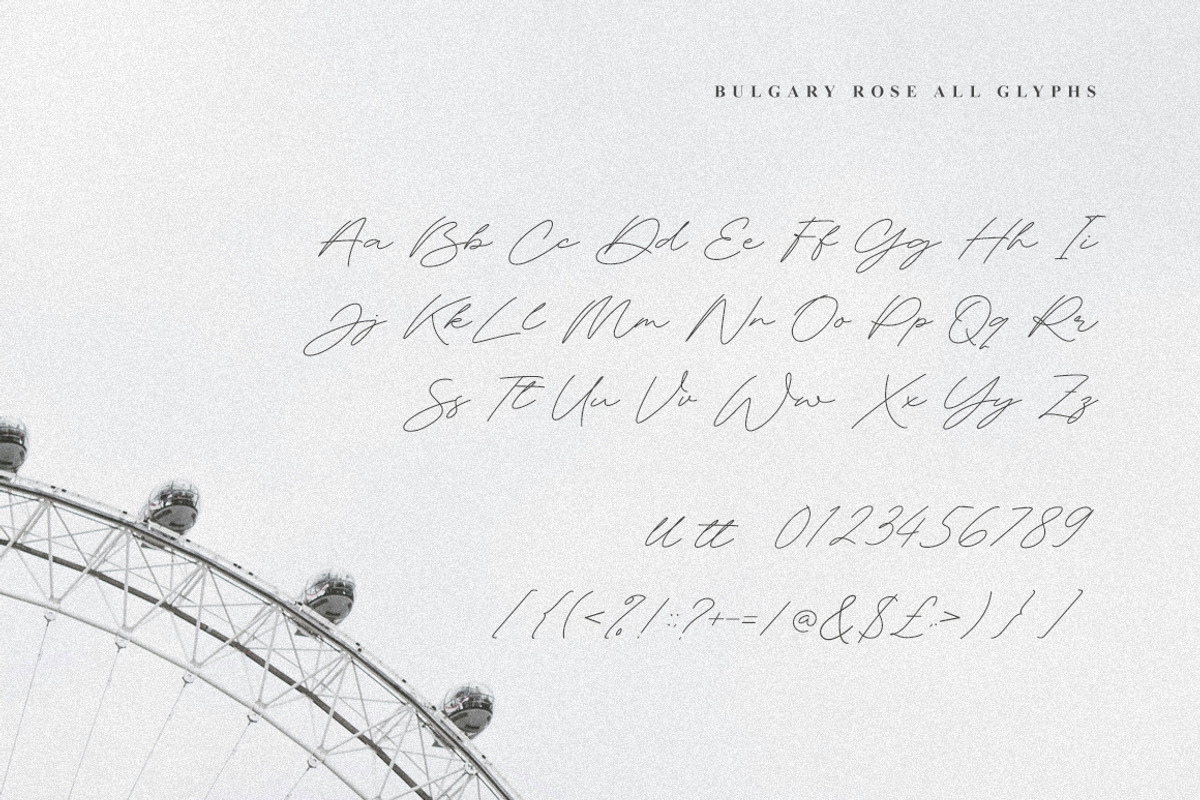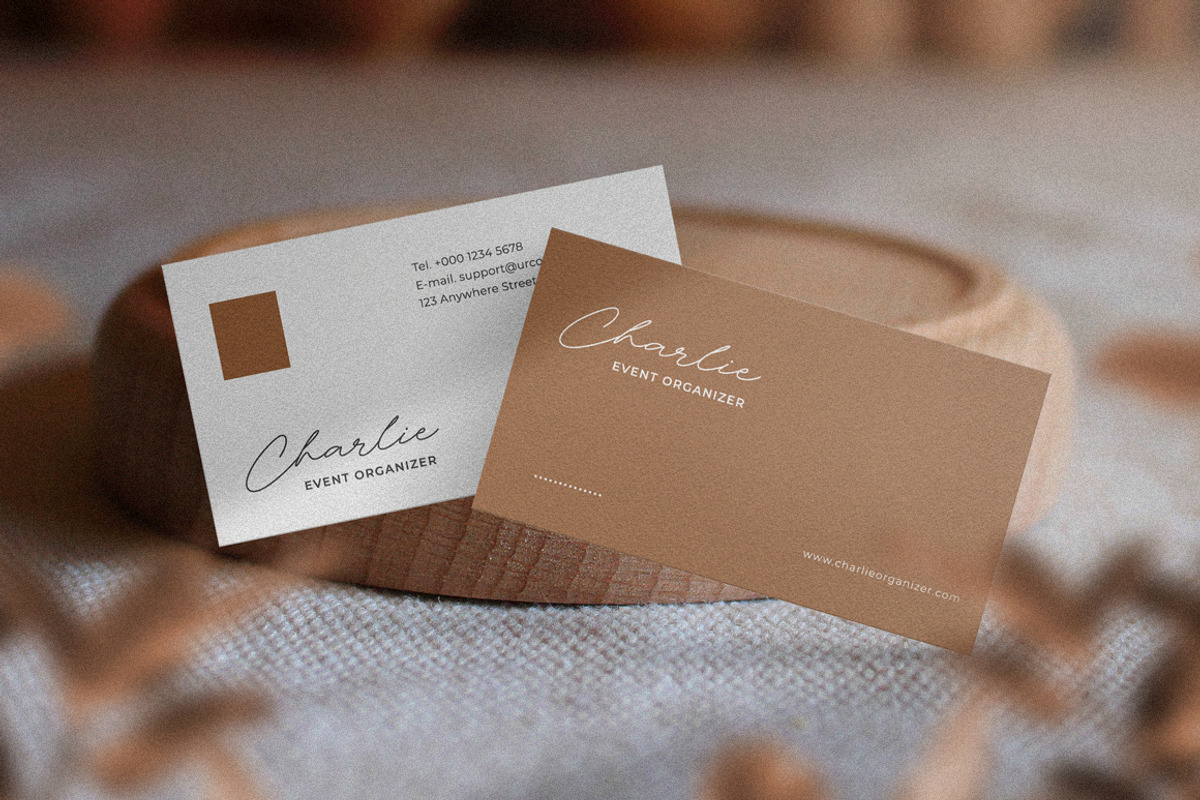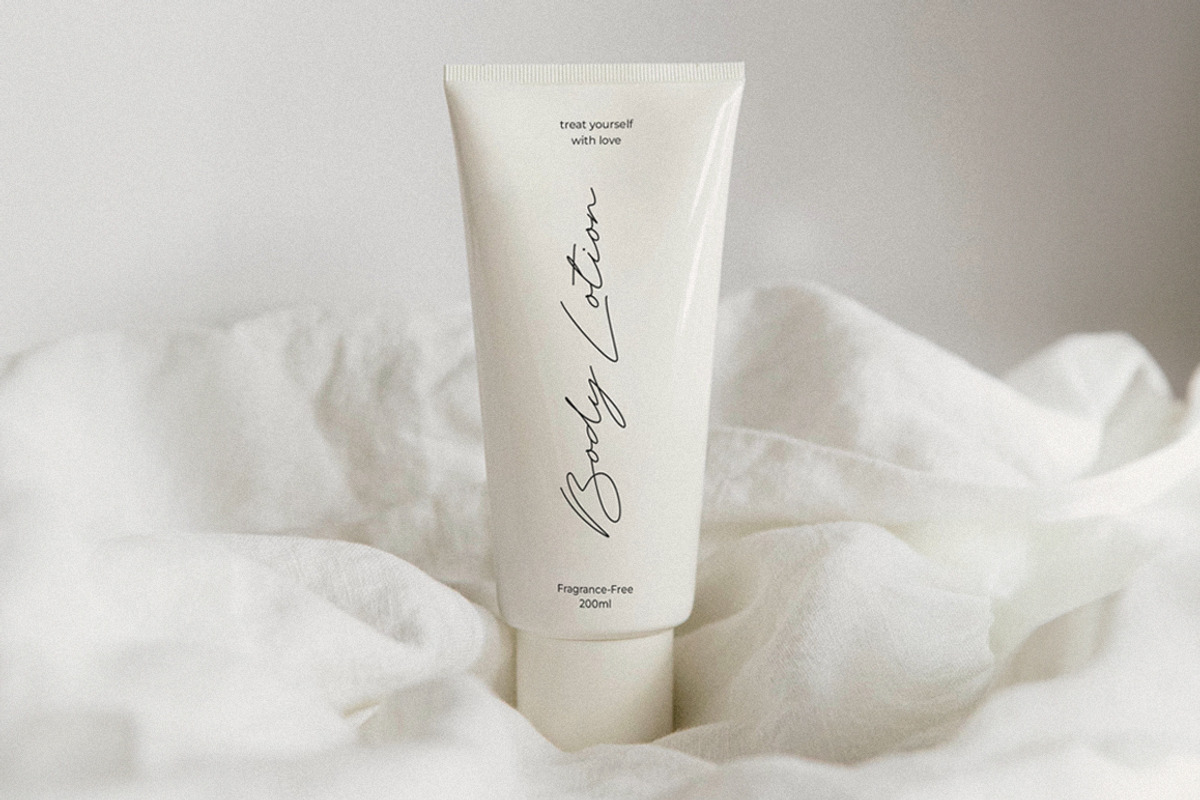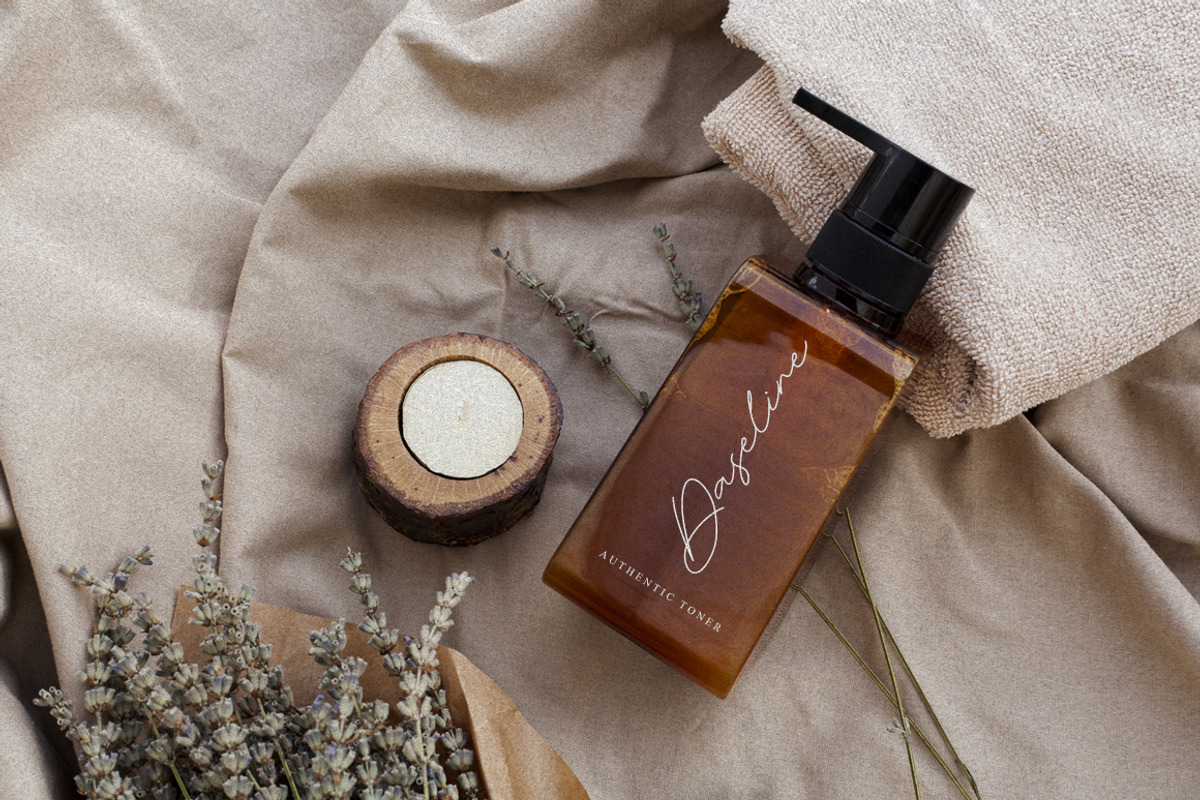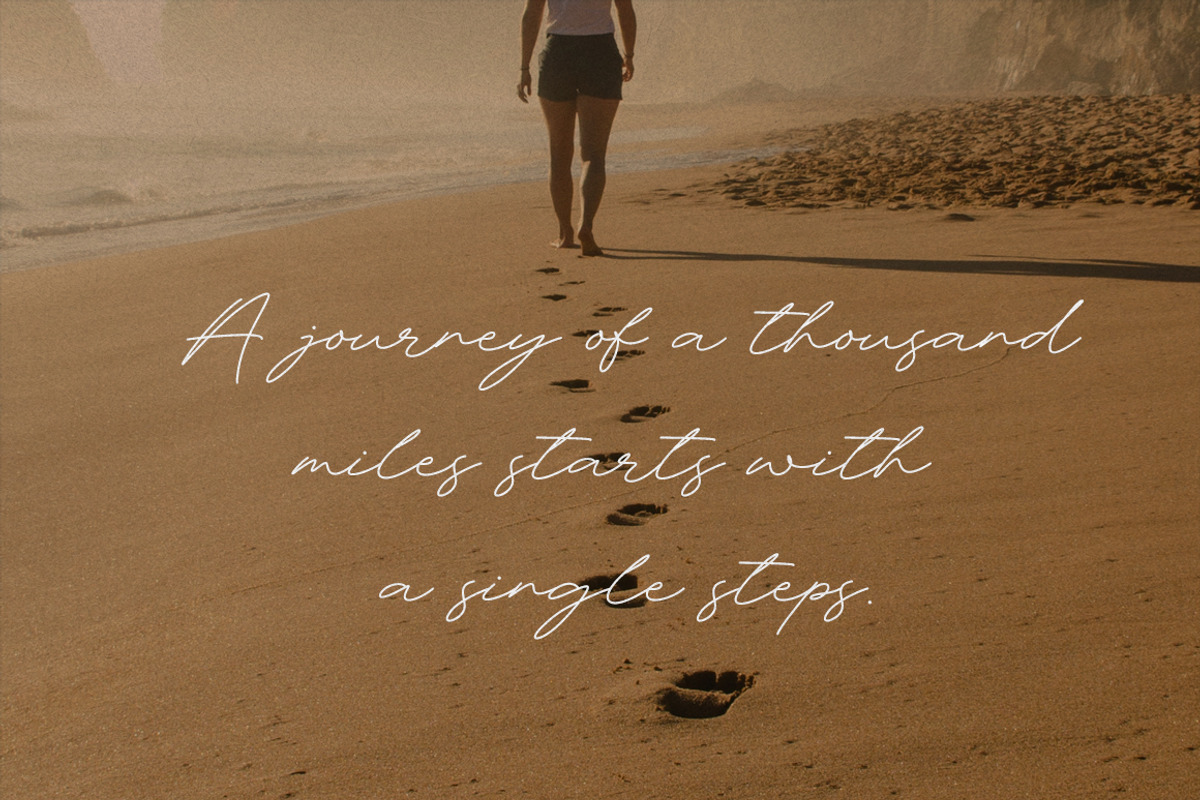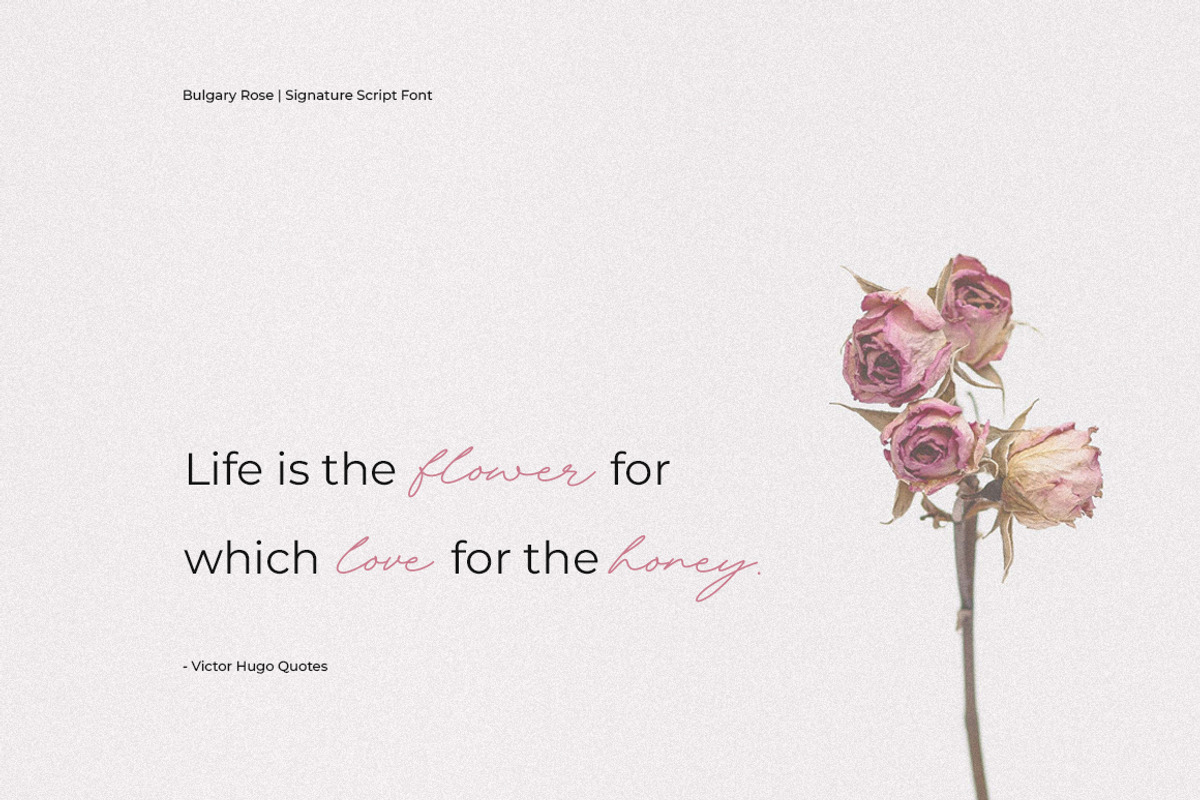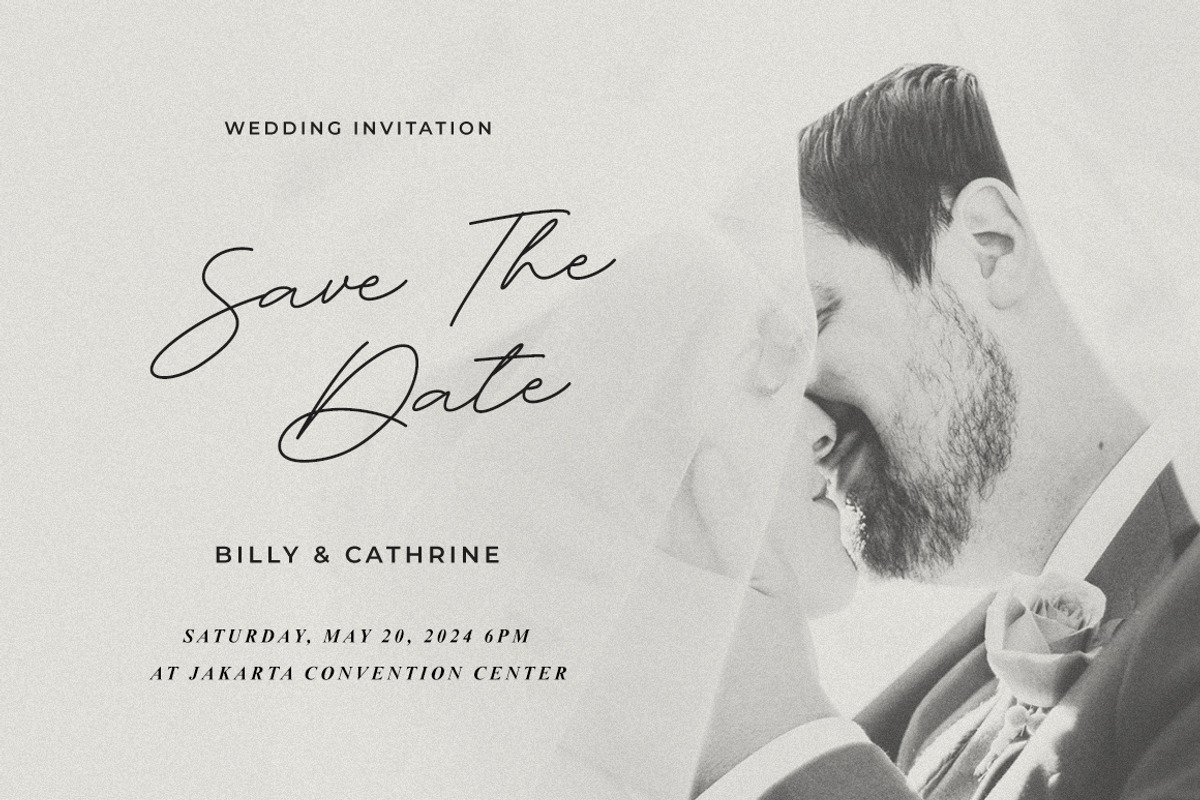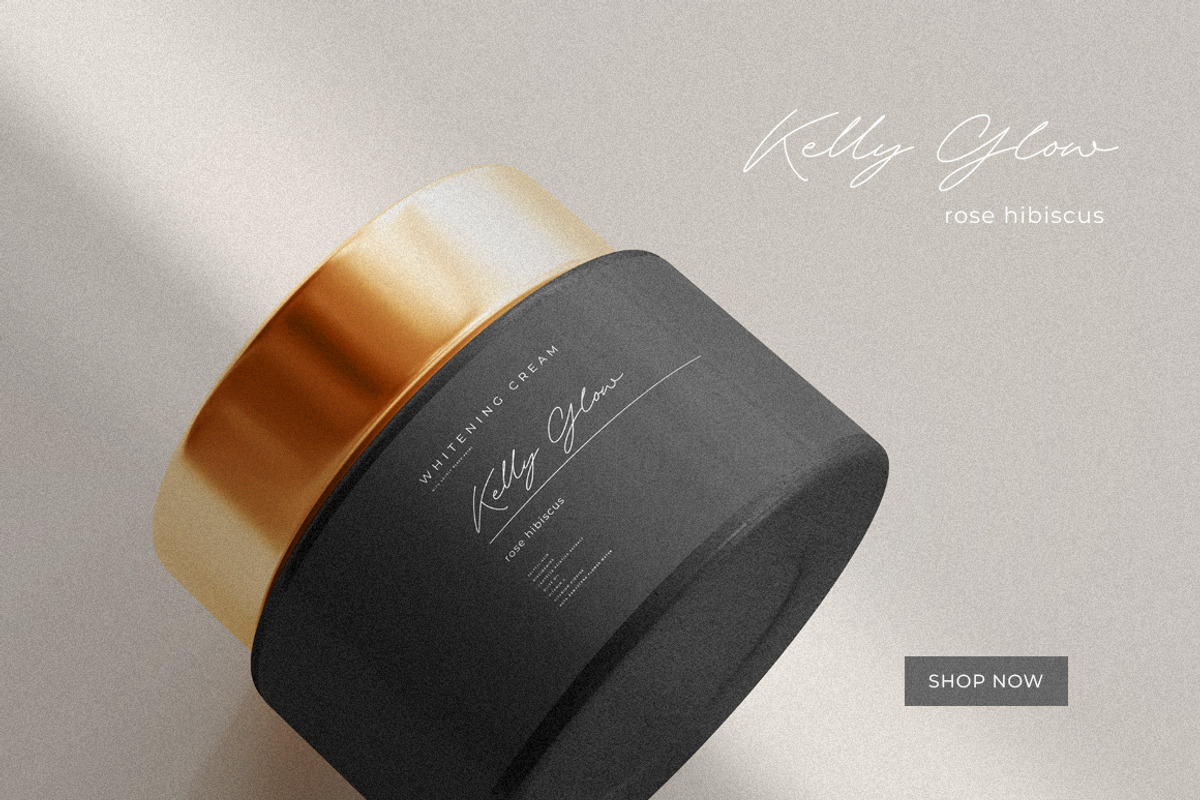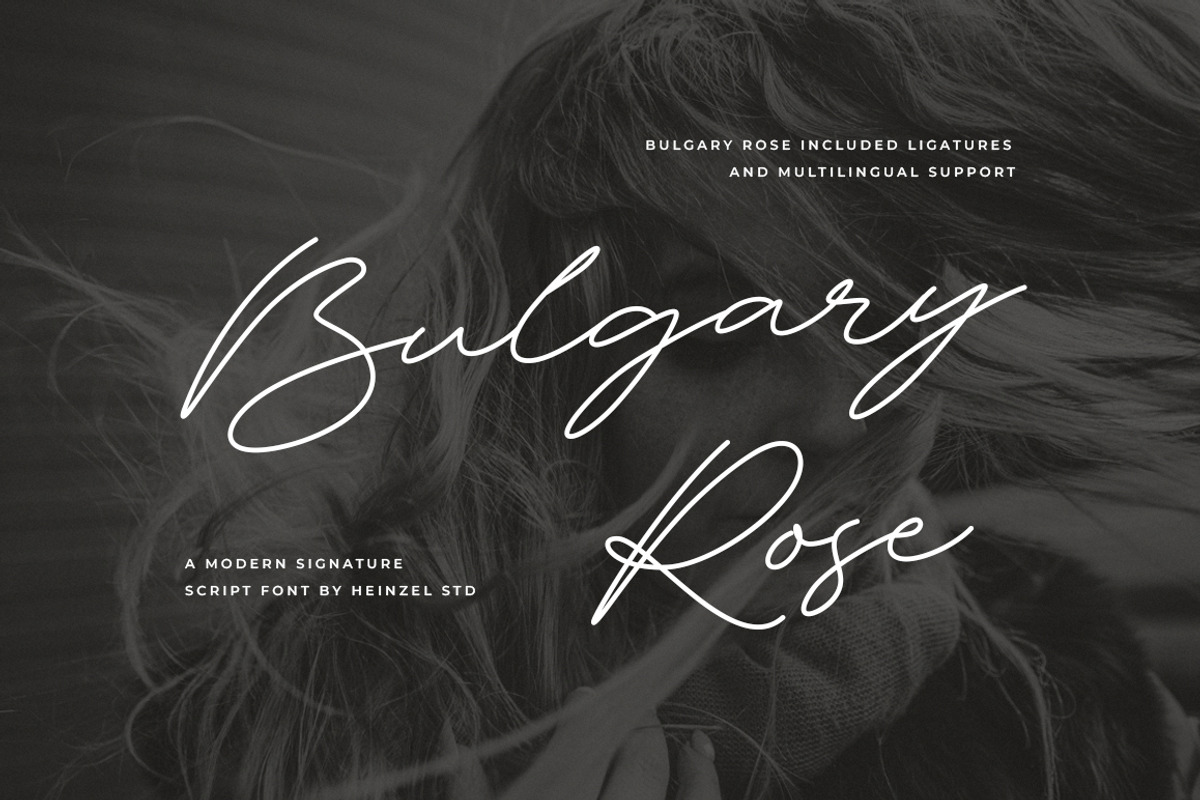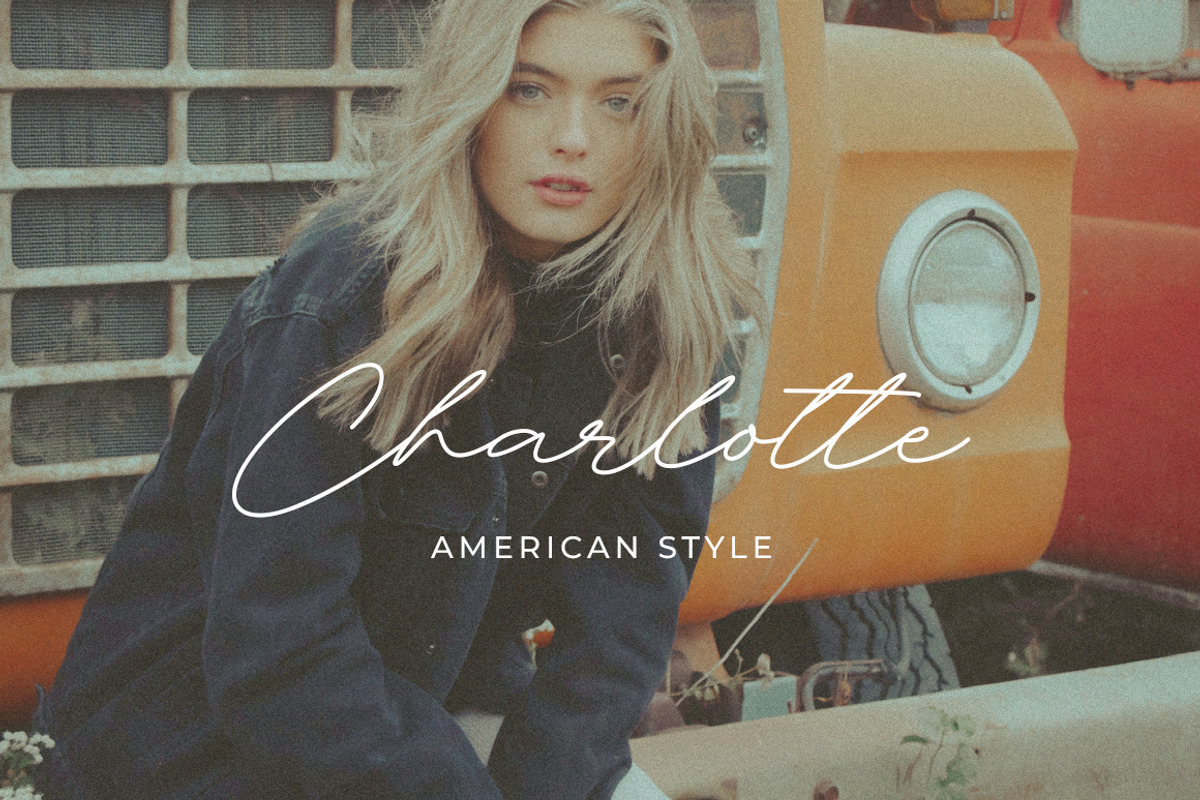
Bulgary Rose Signature Script Font
Bulgary Rose is a Signature Script Font, described by an elegant touch, perfect for your favorite projects. It looks stunning on wedding invitations, thank you cards, quotes, greeting cards, logos, business cards, social media, magazines, marketing materials, and every other design which needs a handwritten touch. Fall in love with its incredibly distinct and timeless style and use it to create spectacular designs!
Bulgary Rose Features:
- Regular Version
- Numerical and Punctuation
- Multilingual Language
This character set supports the following 21 languages: Afrikaans, Basque, Breton, Catalan, Danish, Dutch, English, Finnish, French, Gaelic (Irish, Scots), German, Icelandic, Indonesian, Irish, Italian, Norwegian, Portuguese, Saami (Southern), Spanish, Swahili, Swedish.